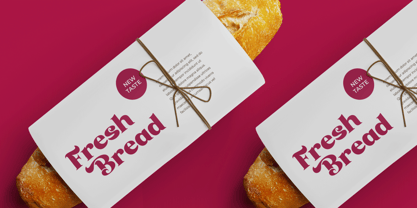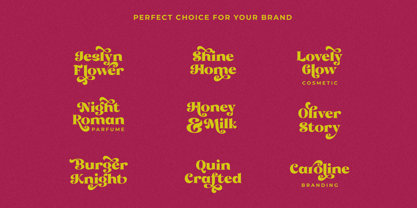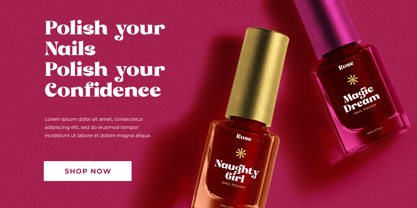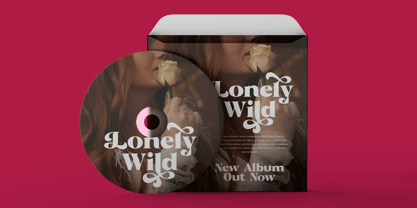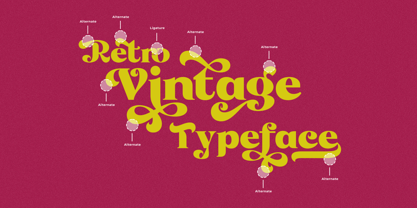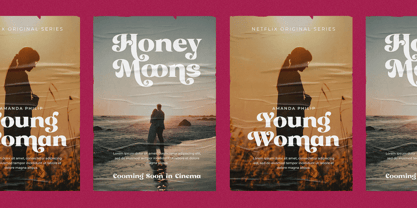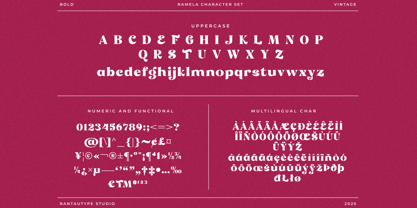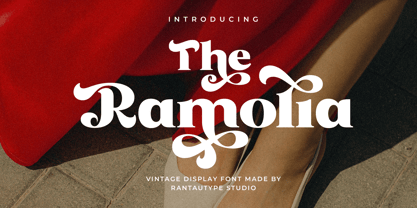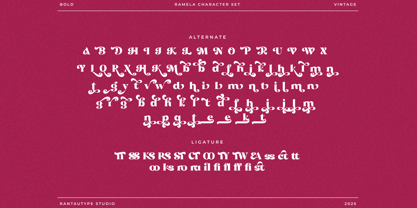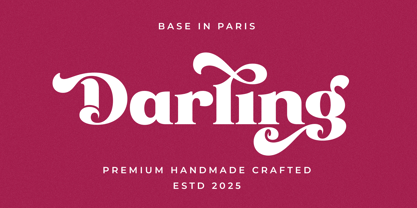
Ramolia
by RantauType
The Ramolia Font Family was designed by Yudi Pratama Chandra and published by RantauType. Ramolia contains 2 styles and family package options. More about this family
Ramolia is decorative font with beautiful character. Ramolia come with bold and aesthetic letterform to create your design project awesome. Ramolia is a perfectly choice for any creative endeavor, chic, lifestyle design such as logotype, advertisements, watermark on photography, stationery, branding project, display and magazine, invitation, corporate brand, product design, label, business project and many other project with luxury touch.
• Ligature and alternate
Designers: Yudi Pratama Chandra
Current Foundry: RantauType